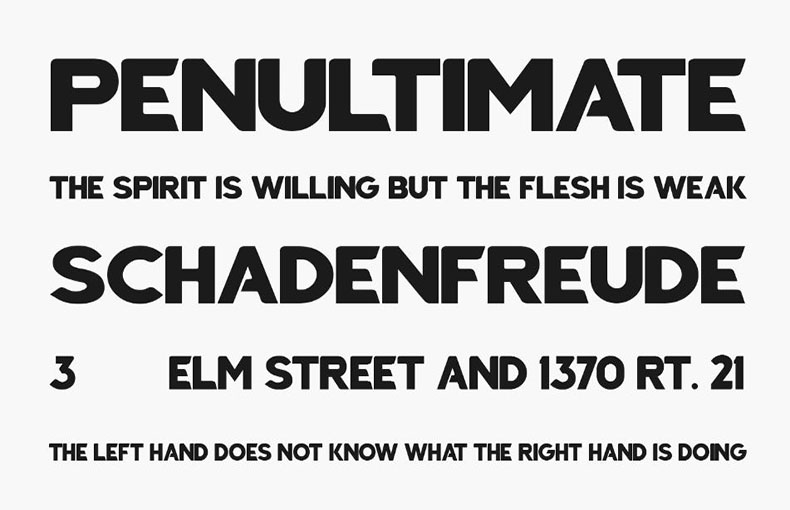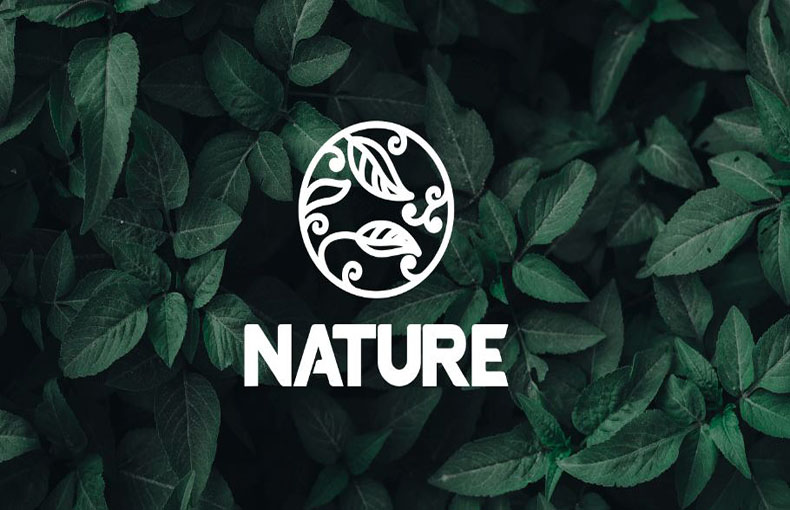
Blantic Font is a minimalistic modern sans serif typeface that comes in a retro style. This font was designed and released by Zamjump Studio.
Due to its bold and elegant display look, you can use this font for any purpose, such as creating logos, social media posters, headers, titles, or making headers.
The combination of futuristic and geometric elements creates a modern design. Moreover, its large x-height and well-spaced letters make it easy to read on screen.
Blantic typeface can be found in a single style along with True Type features. This single style contains 101 unique glyphs and supports 34 multilingual languages.
This sans serif typeface is suitable for brochure layout designs, social media posters, signs, titles, graphics designs, wall murals designs, poster designs, banners, flyers, titles, headers, signs, invoice designs, letterhead designs, and documentation purposes.
This font supports 34 languages.
Blantic is a bold and еlеgant display font dеsignеd by Zamjump Studio. It is a sans-sеrif font with clеan linеs and gеomеtric shapеs, making it pеrfеct for crеating еyе-catching hеadlinеs, logos, and othеr dеsign еlеmеnts.